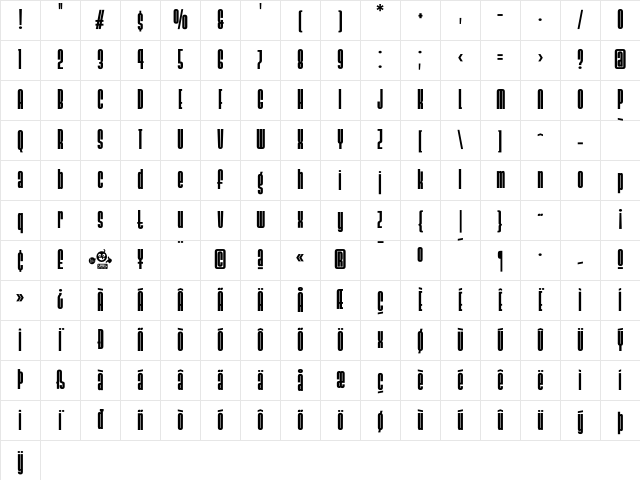
Ainsdale Bold Free Font
Ainsdale Bold
Design Context for Ainsdale
Ainsdale is a composed and adaptable typeface that performs quietly and consistently across a wide range of design contexts. Its bold stroke weight gives it real presence on the page.